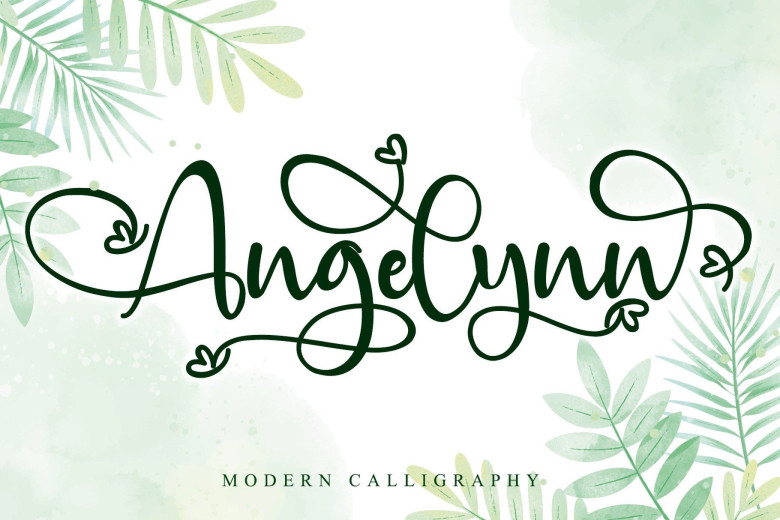
Angelynn Modern Calligraphy Script Font
Angelynn Font is a romantic calligraphy script font with a natural & stylish flow. This script has a multitude of natural looking ligatures in its Open Type features – making the font look as close to natural handwriting as possible.